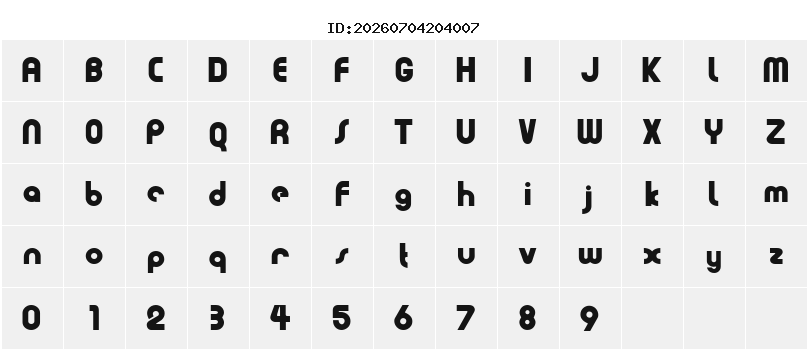
About DoubleTrouble.ttf
DoubleTrouble.ttf is a modern, elegant sans-serif font designed for ultimate readability and visual harmony. Perfect for branding, headlines, web design, and print materials.